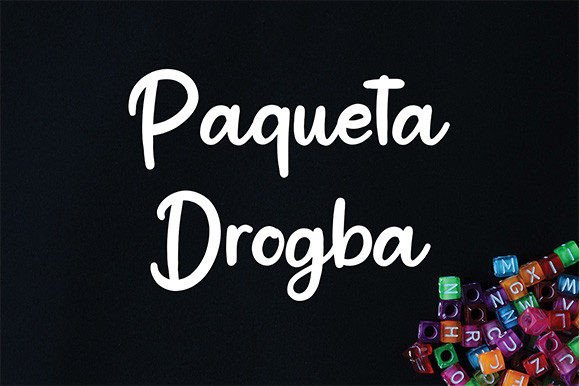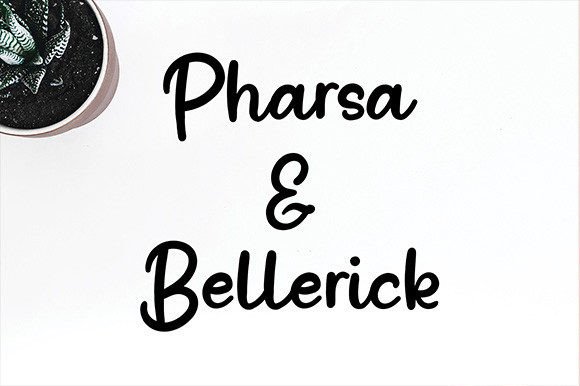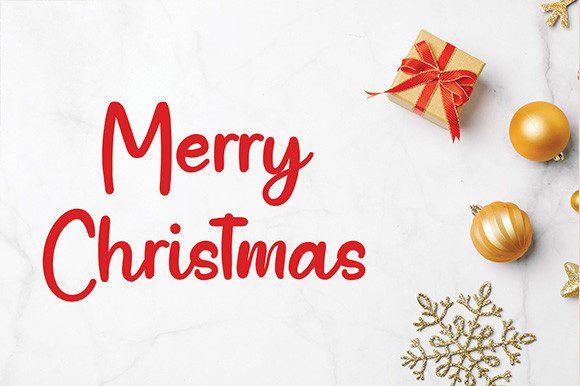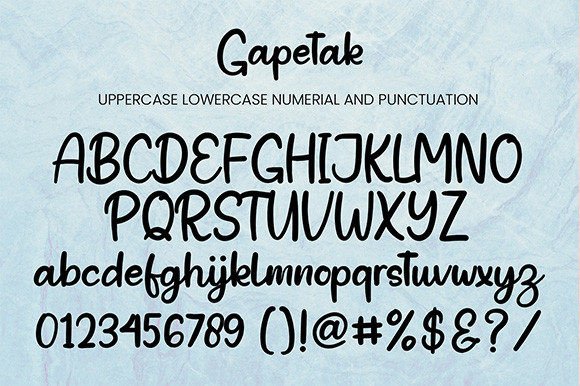
Introducing Gapetak Font: Elevate Your Designs with a Fresh New Style
In the world of design, typography plays a crucial role in conveying messages, expressing creativity, and capturing attention. For designers, crafters, and DIY enthusiasts, finding the perfect font can make all the difference in bringing a project to life. This is where Gapetak Font comes in – a stylish and versatile font designed to meet the needs of various projects, from quotes and logos to blog headers, posters, and more.
What is Gapetak Font?
Gapetak Font is a modern, innovative font that boasts a unique style, making it an excellent choice for a wide range of applications. Its clean lines, elegant curves, and precise spacing create a visually appealing aesthetic that is both sophisticated and eye-catching. Whether you’re working on a personal project or a client’s commission, Gapetak Font is sure to impress.
Key Features of Gapetak Font
- Unique Style: Gapetak Font features a distinct, contemporary design that sets it apart from other fonts.
- Versatility: Suitable for various projects, including quotes, logos, blog headers, posters, ribbons, fashion, clothing, letters, invitations, stationery, and more.
- Elegant and Sophisticated: The font’s clean lines and elegant curves create a refined, high-end look.
- Easy to Read: Gapetak Font is designed for optimal readability, ensuring your message is conveyed clearly.
Use Cases for Gapetak Font
Gapetak Font’s versatility makes it an excellent choice for a variety of projects, including:
- Quotes and Inspirational Messages: Add a touch of elegance to your quotes and inspirational messages with Gapetak Font.
- Logos and Branding: Create a lasting impression with a custom logo designed using Gapetak Font.
- Blog Headers and Titles: Elevate your blog’s visual appeal with Gapetak Font’s clean and modern design.
- Posters and Flyers: Grab attention with Gapetak Font’s bold and eye-catching style.
- Fashion and Clothing: Add a touch of sophistication to your fashion brand with Gapetak Font.
- Invitations and Stationery: Create beautiful, professional-looking invitations and stationery with Gapetak Font.
Why Choose Gapetak Font?
With so many fonts available, why choose Gapetak Font? Here are just a few reasons:
- Time-Saving: Gapetak Font is designed to save you time and effort, allowing you to focus on other aspects of your project.
- Professional Results: Achieve professional-looking results without extensive design experience.
- Unique Style: Stand out from the crowd with Gapetak Font’s distinctive design.
Gapetak Font is an exceptional choice for designers, crafters, and DIY enthusiasts looking to elevate their projects with a fresh new style. Its versatility, elegance, and sophistication make it suitable for a wide range of applications. Whether you’re working on a personal project or a client’s commission, Gapetak Font is sure to impress. So why wait? Download Gapetak Font today and take your designs to the next level!